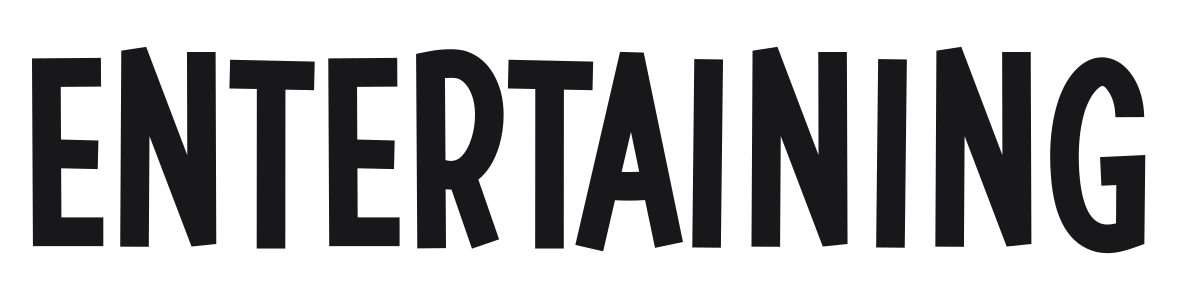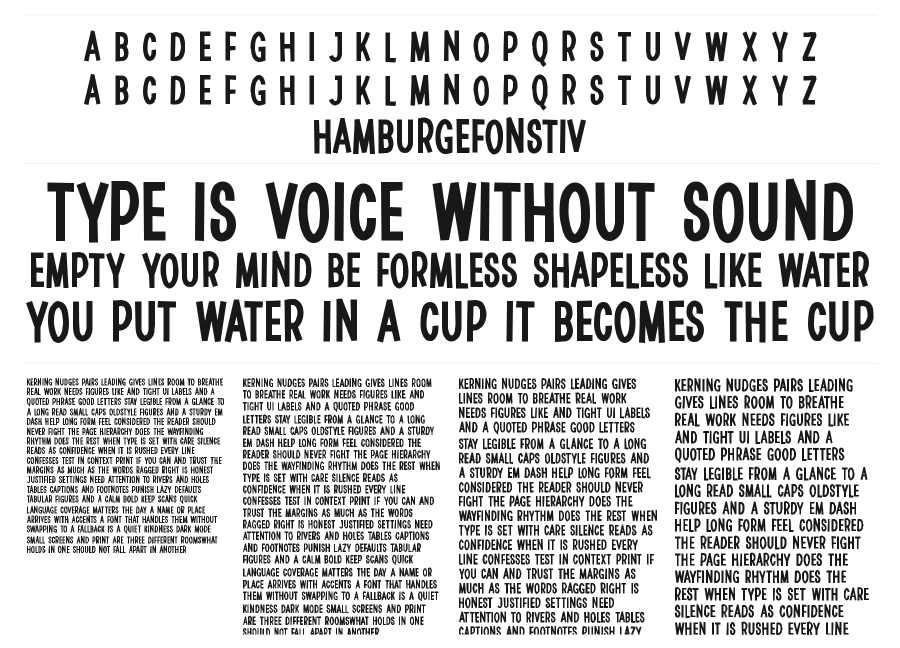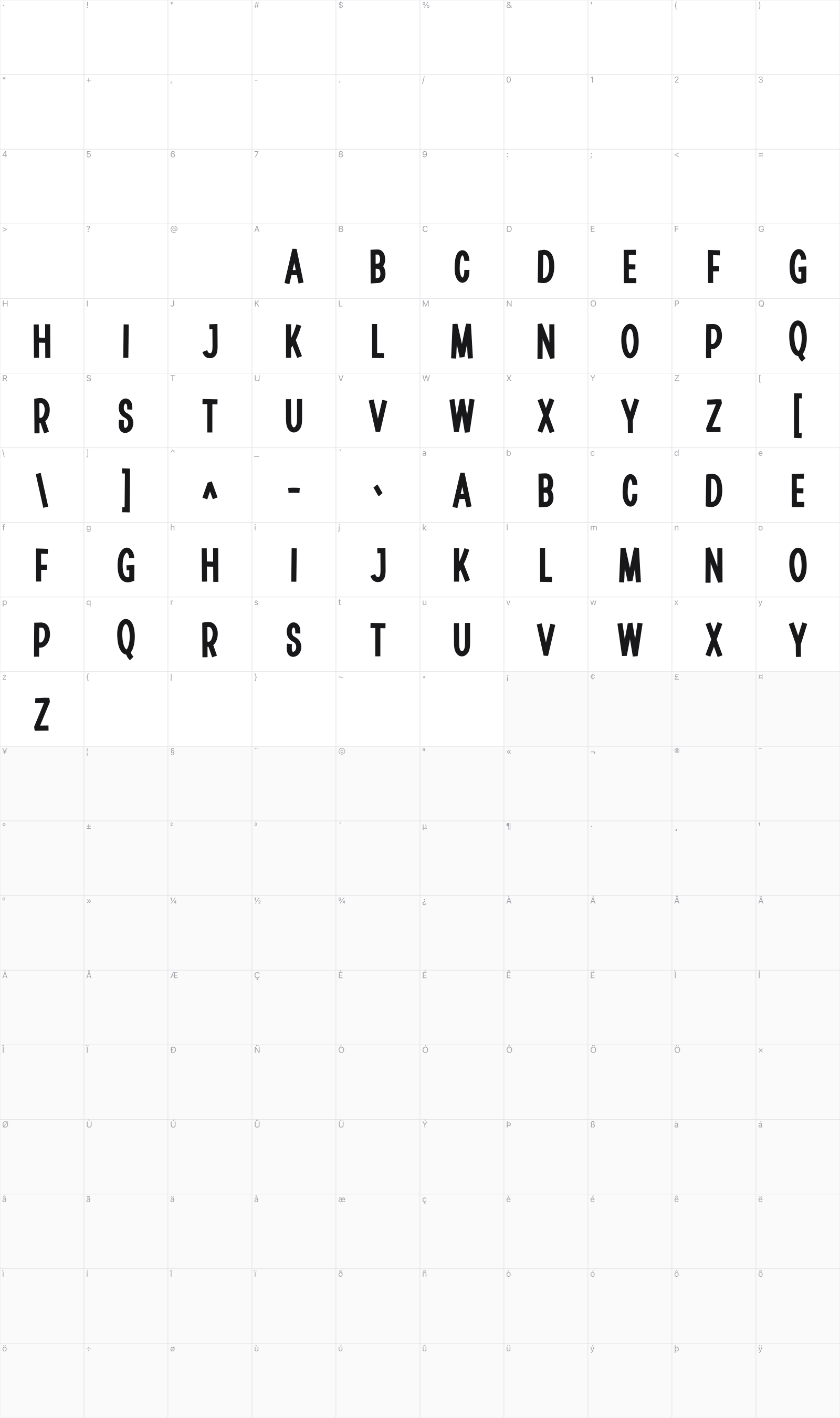
Entertaining
Entertaining is a bold condensed sans-serif with a hand-crafted irregularity that keeps it from feeling mechanical. Slightly organic edges and sturdy, tall-narrow proportions give it a lively, retro-inflected energy reminiscent of mid-century American signage and poster work. It punches hard at large sizes and reads instantly across posters, packaging, and event graphics.